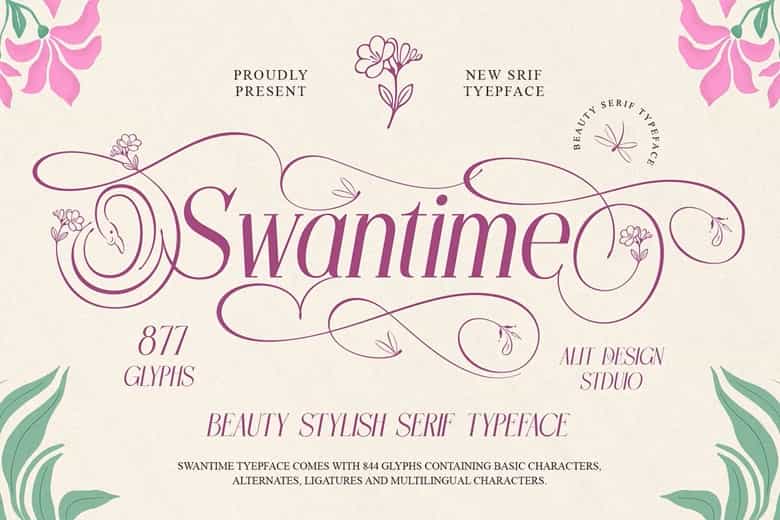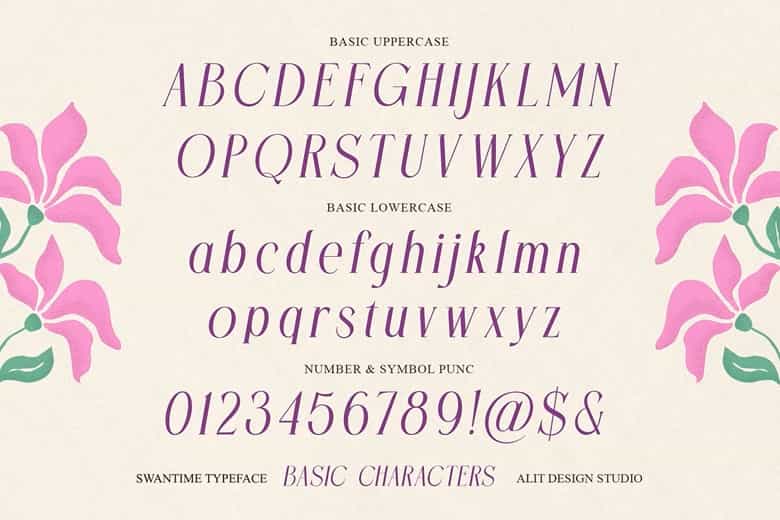
Swantime is a gorgeous serif typeface, a place, where contemporary elegance plays with the magic of nature. Swantime enables you to add a lively and romantic touch your designs as a graceful swan can be seen passing over the smooth surface of a lake. Its tilted shape gives a person the feeling of movement, and its clear lines are a somewhat simple and modern sophistication.